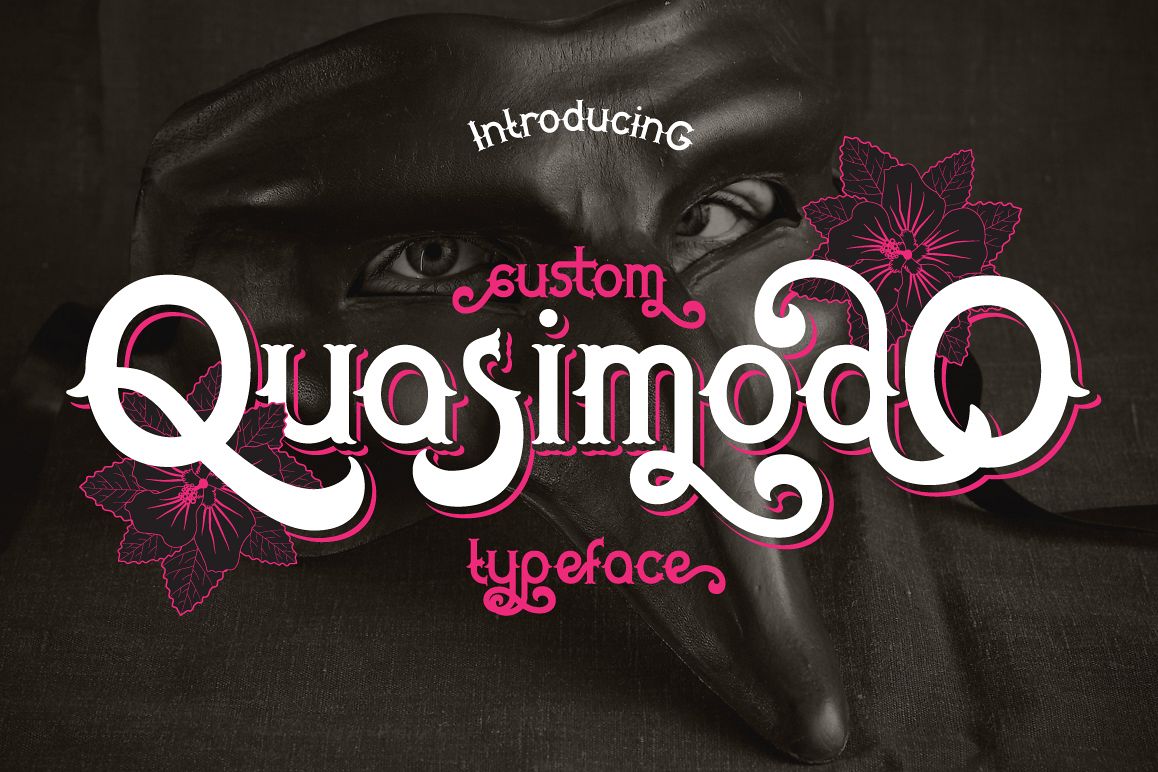
Quasimodo
Introduce QUASIMODO typeface, is suitable for simple logo design, website header, wedding design, menu fonts for website. to design fashion, and others. Good for vintage theme.Main Files :